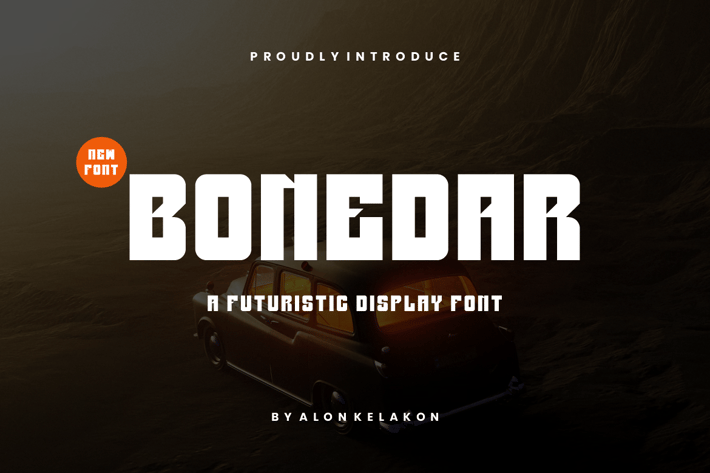
Bonedar Futuristic Display Font
Bonedar Futuristic Display Font Font is unique . Ready to use for your design like labeling, movie sceen, poster, movie title, gigs, album covers, logos, and much more.